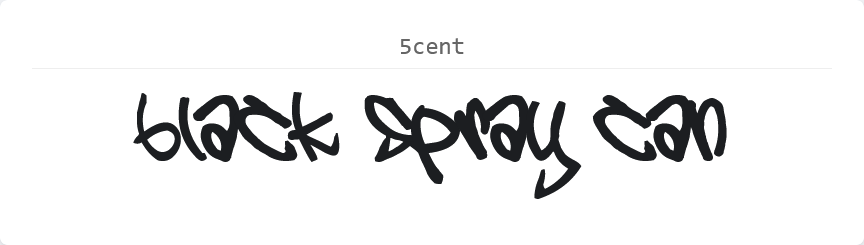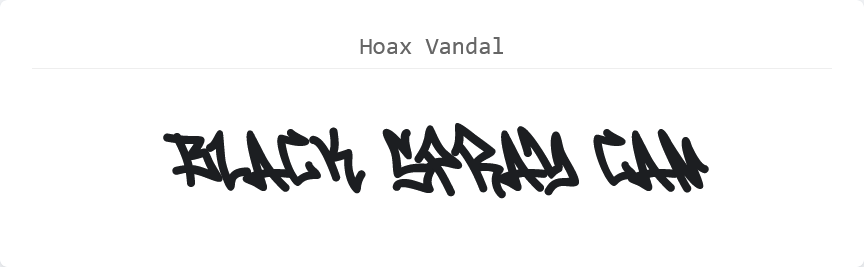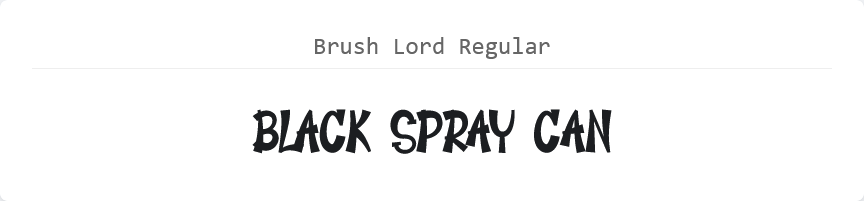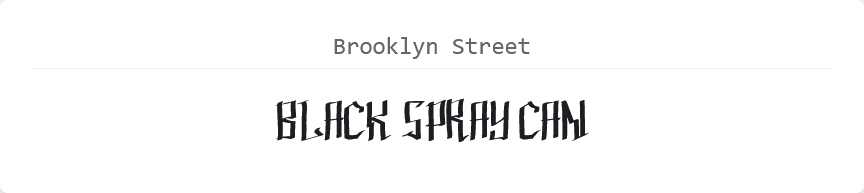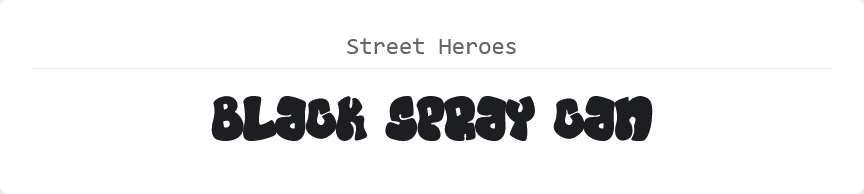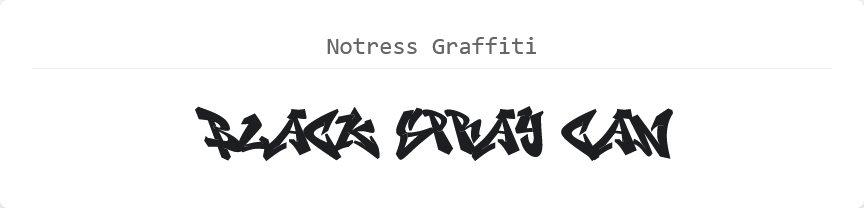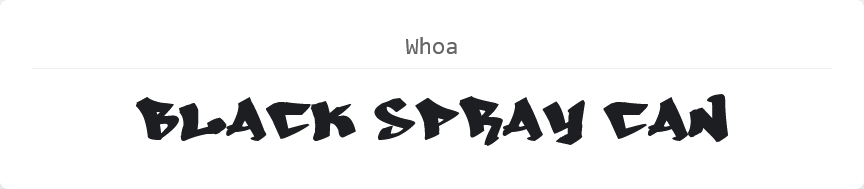
In this blog post, Iām sharing 10 free graffiti fonts for you to download and use in your design projects. The best thing about all of these fonts is that they include a commercial use license, which means you can use them in projects that are intended to make a profit, like products you sell. You can even upload them onto Canva if your have the premium version.
Graffiti fonts draw their inspiration from street art and that’s what makes them edgy and creative. However, I would say that because of their highly stylized and letterforms, they can be a tiny bit difficult to read so it’s best to use them strategically.
For example, they are excellent for apparel design, print-on-demand products, stickers or as the main graphic element on a poster. They may also work well for logos or branding for businesses like skate shops or streetwear lines. I would advise against using them for critical information that needs to be understood quickly. On a poster, for instance, you wouldn’t want to set the date, time, or venue in a complex graffiti font. Similarly, for social media marketing where captions need to be legible at a glance, these might not be the best choice for body text. They are best used as display fonts that grab attention
1. 5cent
2. Hoax Vandal
3. One Eximus
4. Brush Lord
5. Brooklyn Street
6. Street Heroes
7. Notress Graffiti
8. Whoa
9. Seven Venom
10. Next Bravo